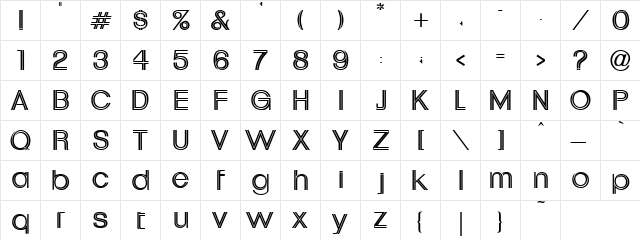
Oneil Regular
Oneil takes a measured approach to typography — its balanced proportions and neutral character make it a reliable workhorse for both digital and print work.